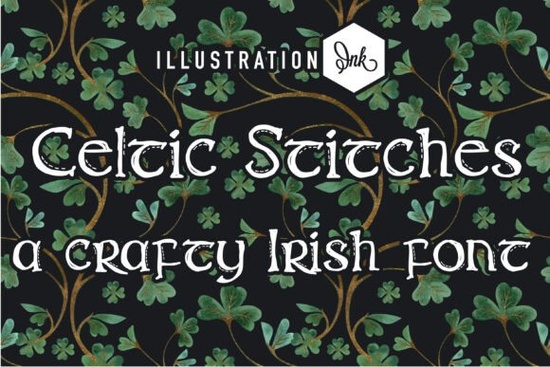
If you need a typeface that brings a handmade, heritage vibe to your projects, Celtic Stitches Font delivers exactly that. Designed to mimic hand-stitched lettering, it blends traditional Celtic curves with a crafty, textured finish. Whether you run a print-on-demand shop, design wedding invitations, or create digital downloads, this font gives your work a personal touch without requiring hours of manual illustration.
What makes this typeface stand out for craft projects?
Most decorative fonts rely on clean vectors, but this one leans into purposeful imperfection. The built-in stitch details and uneven baselines recreate needlework and hand-drawn signage. That texture works well when you want your design to look made by a person rather than generated by a template. For small business owners, that authenticity often translates to better engagement and stronger product listings.
The character set covers standard letters, numbers, and basic punctuation, so you can type out quotes or shop names without switching fonts. If you prefer smoother letterforms for longer paragraphs, you might explore alternatives like a clean geometric sans to handle body text while letting the stitched letters take the spotlight in headings.
Which design projects work best with a stitched Celtic style?
This lettering style shines when you give it room to breathe. Because of the decorative stitching, it reads best at larger sizes and in short phrases. Here are a few formats where it consistently performs well:
- Print-on-demand apparel: Heritage club merch, seasonal shirts, and cozy sweater graphics
- Paper goods: Wedding invites, baby shower cards, and rustic greeting cards
- Digital products: Printable wall art, planner covers, and craft templates
- Small business branding: Bakery logos, candle labels, and handmade packaging
Pairing it with a simpler companion font keeps your layout readable. Some designers balance ornate display letters with a soft, flowing script for subheadings, while others stick to straightforward sans-serifs for contact details.
For cutting machines, convert your text to outlines before sending it to the blade. The stitch details can create tiny cut lines if left as editable text, and flattening the design prevents weeding headaches. If you frequently switch between decorative typefaces and need a reliable backup for longer descriptions, a sturdy handwritten style can keep your brand voice consistent across packaging and social posts.
If you are building a font library for client work, you might also compare it with an expressive brush typeface to see which better fits your current project mood. Many creators keep both on hand: one for rustic, heritage-themed work and the other for modern branding.
Not every project calls for stitched lettering. When you need a cleaner finish, browsing independent type foundries can help you build a versatile toolkit. Pairing complementary fonts saves time and keeps your shop listings cohesive.
- Type your headline at 72pt or larger so the stitch details stay crisp
- Pair with a simple sans-serif or light script for body text and contact info
Start with a short phrase, adjust your tracking slightly if the letters feel too tight, and save your favorite pairings as a template. Once you have a repeatable workflow, you can roll out seasonal products or client proofs much faster.